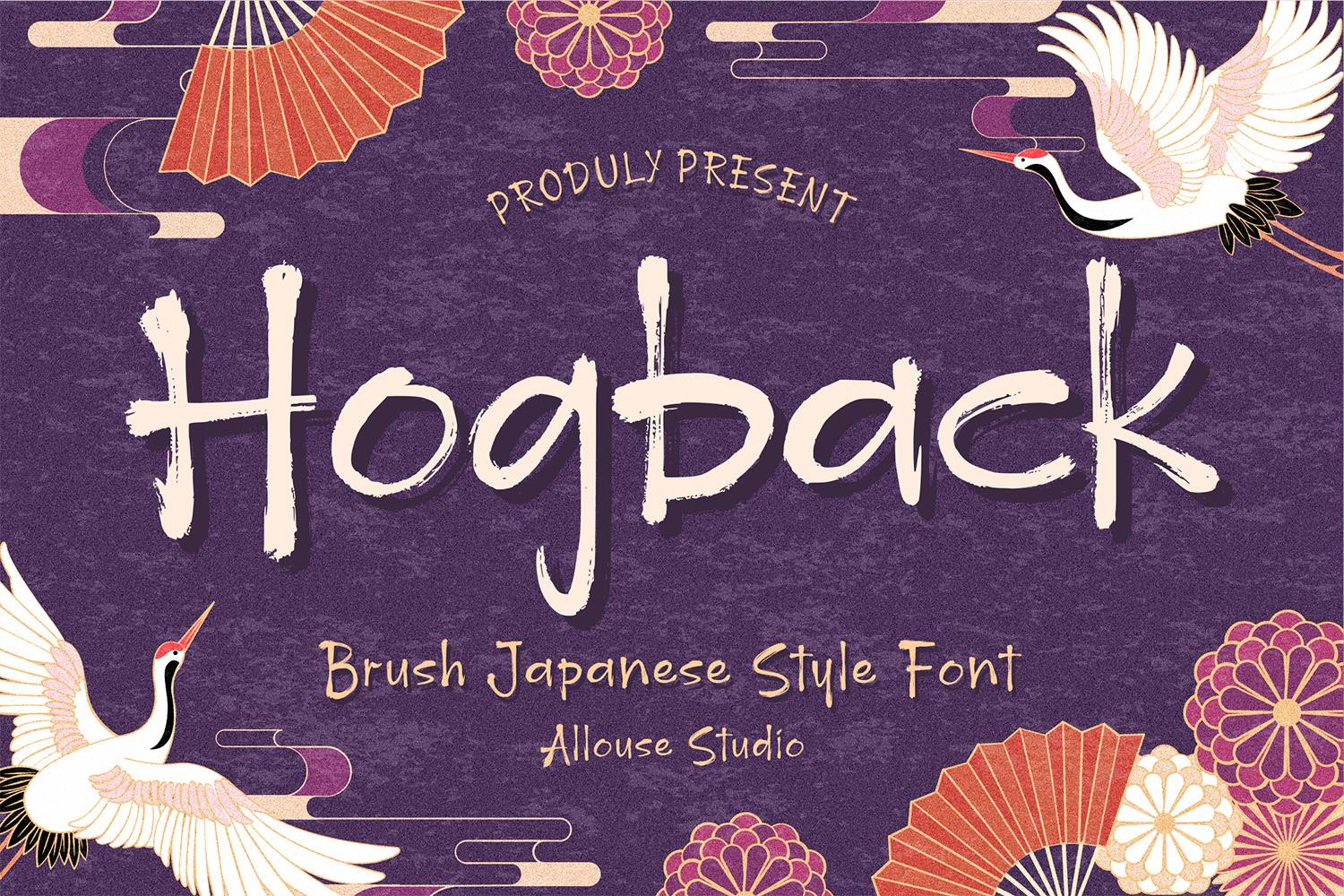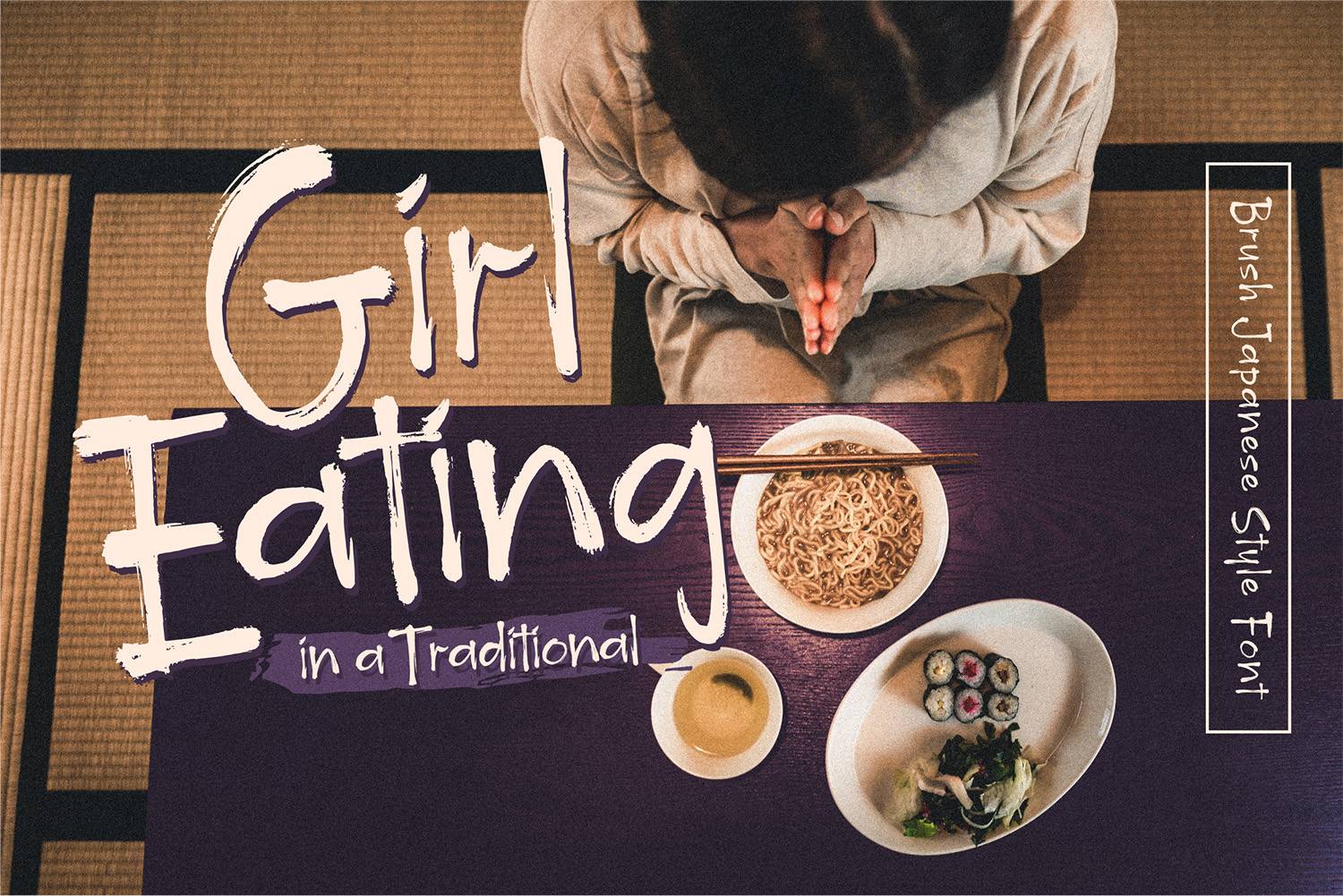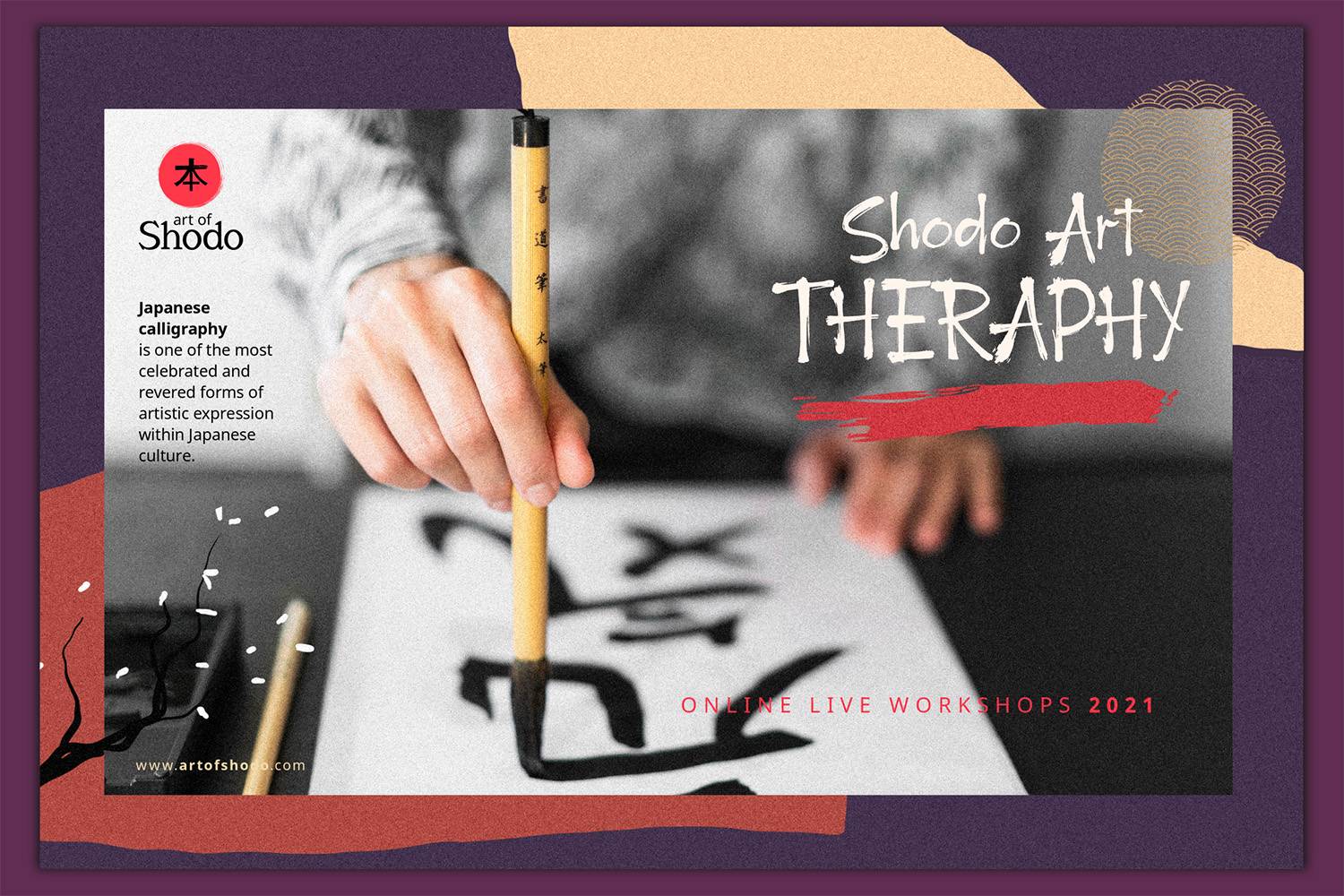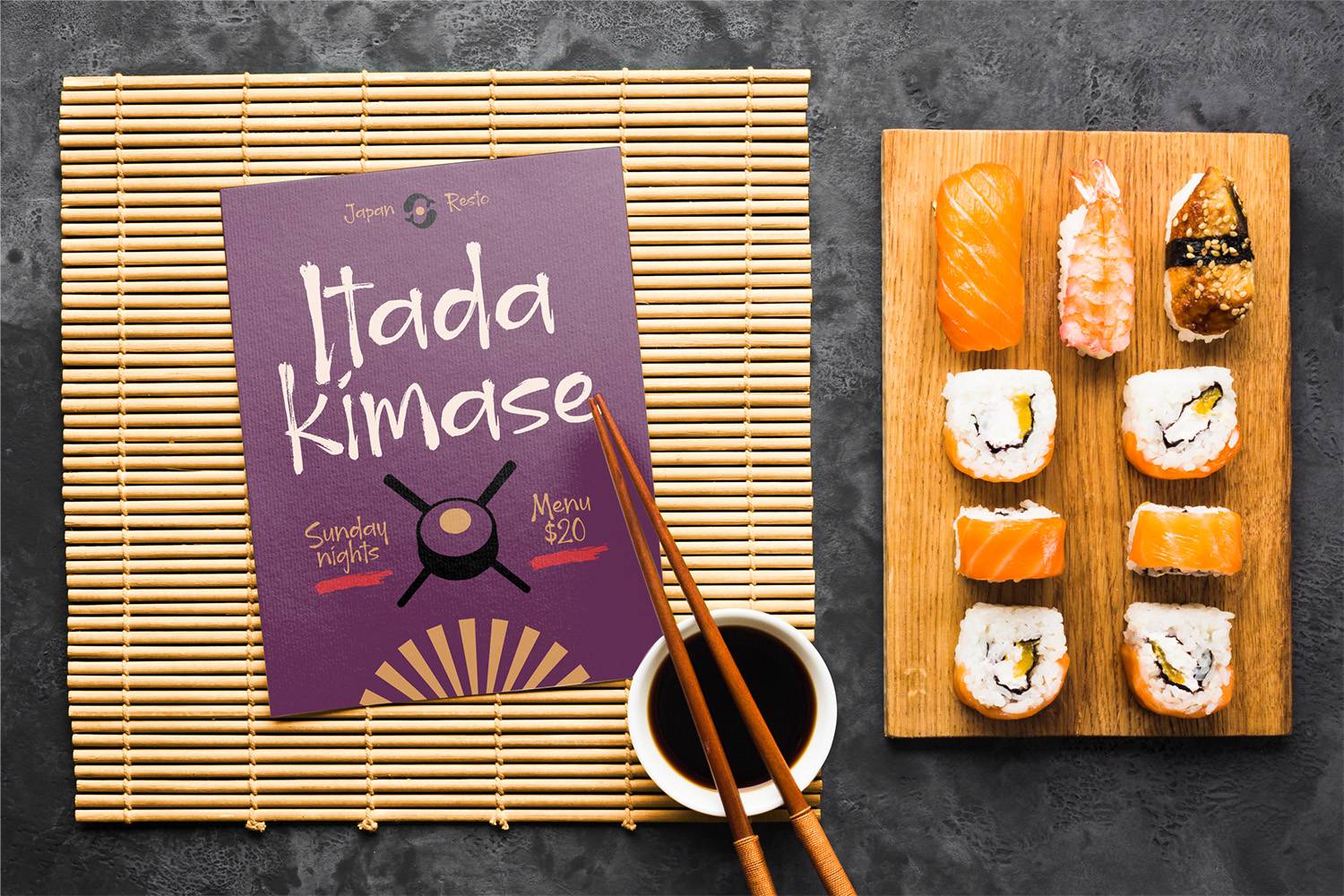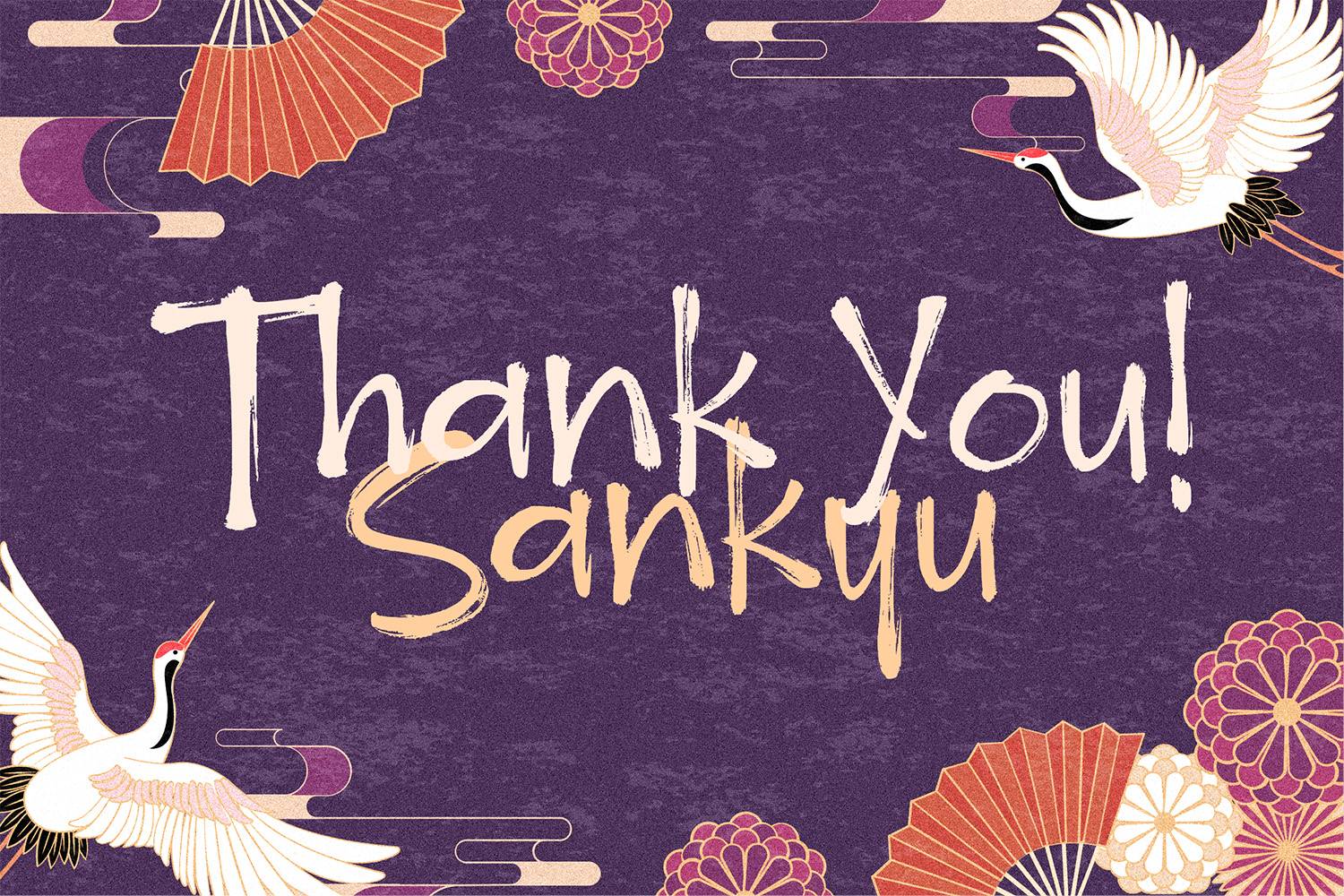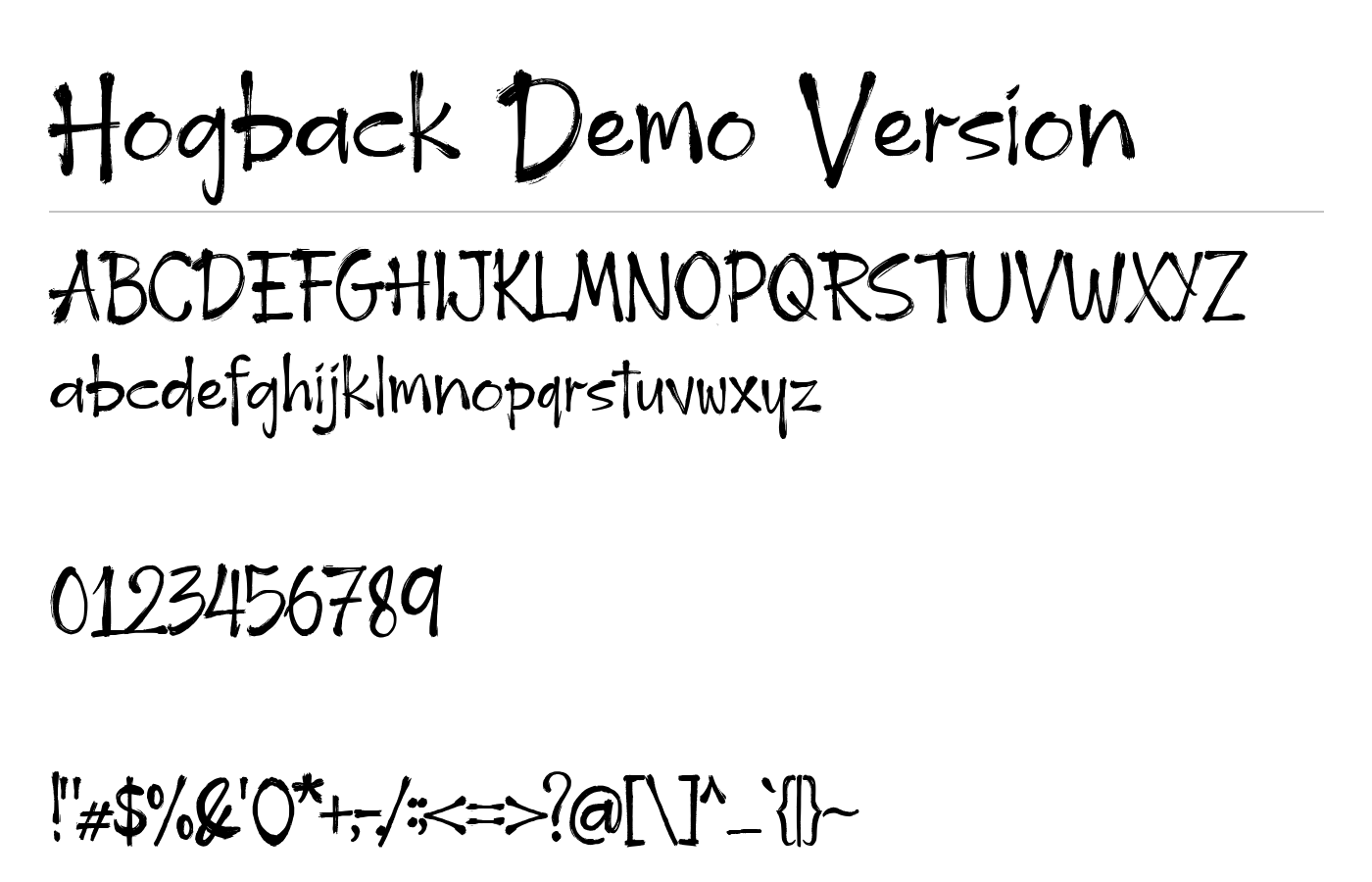
Hogback is a playful, hand-drawn sans serif font with a casual, brushstroke texture that gives it an organic and personal feel. Its irregular shapes and lively strokes make it perfect for creative projects, informal branding, or artistic designs where a friendly, approachable vibe is desired. This font works well for headlines, posters, and packaging that aim to stand out with a unique, handcrafted style.
Hogback Font
About Hogback Font